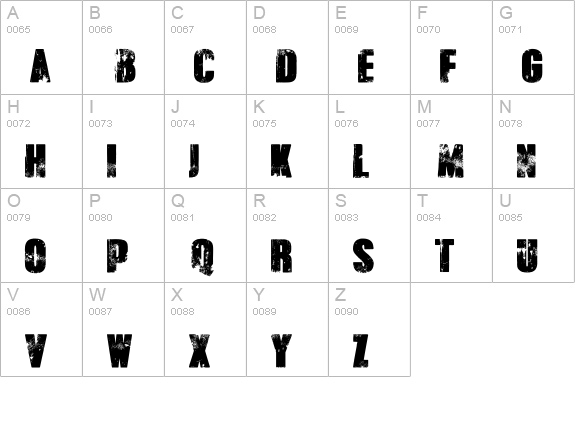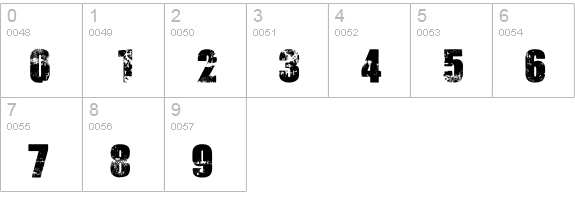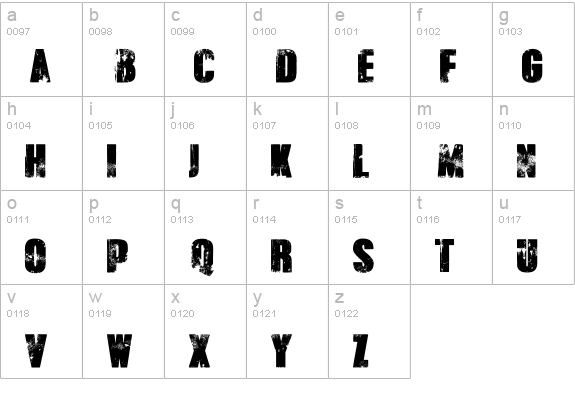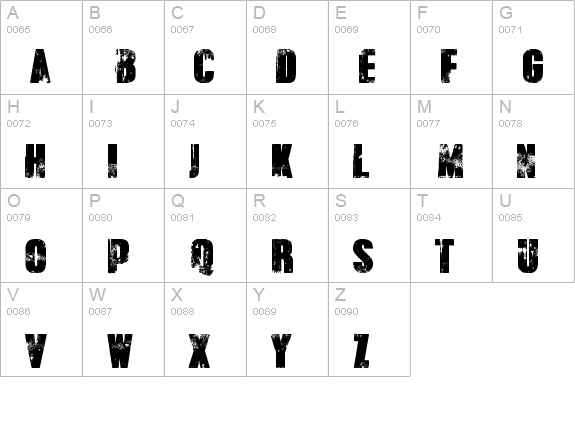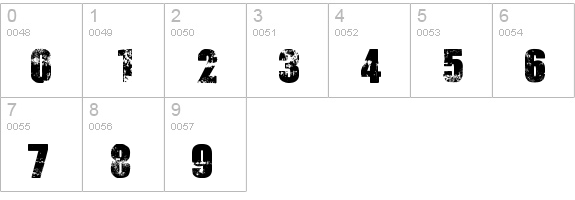
Broken Detroit Font Details
Introducing Broken Detroit, a captivating font that encapsulates the spirit of a city with a rich history and an indomitable resilience. This dynamic typeface captures the raw energy and edgy charm of Detroit, a city renowned for its pioneering spirit and vibrant artistic culture. Broken Detroit is a free font that seamlessly blends modern aesthetics with a touch of urban grit. Its bold, rugged letterforms evoke a sense of urban decay, paying homage to the city's industrial heritage. Each character is meticulously crafted to exude a sense of strength and authenticity, mirroring the perseverance of the Detroit community. With its unique style and versatile nature, Broken Detroit is the perfect choice for a wide range of design projects. Whether you're creating eye-catching posters, attention-grabbing logos, or captivating social media graphics, this font will instantly elevate your work and leave a lasting impression. What sets Broken Detroit apart is not only its striking design but also its accessibility. This font is freely available to download at FontsMarket.com, allowing designers and creatives from all walks of life to effortlessly incorporate its urban charm into their projects. By making it accessible to all, Broken Detroit embodies the spirit of community and inclusivity that Detroit is renowned for. So, if you're looking to infuse your designs with an authentic urban vibe, look no further than Broken Detroit. Download this free font today from FontsMarket.com and let its bold, gritty presence inspire your creativity. Embrace the spirit of Detroit and create designs that resonate with strength, resilience, and a touch of urban allure.